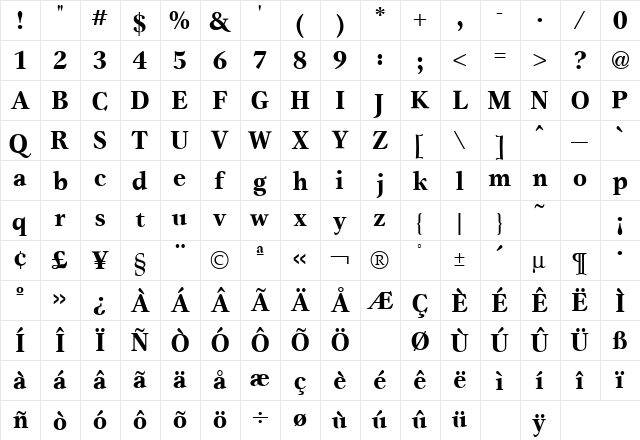
Gamma Bold
Design Context for Gamma Typeface
Gamma takes a measured approach to typography — its balanced proportions and neutral character make it a reliable workhorse for both digital and print work. Its bold stroke weight gives it real presence on the page.